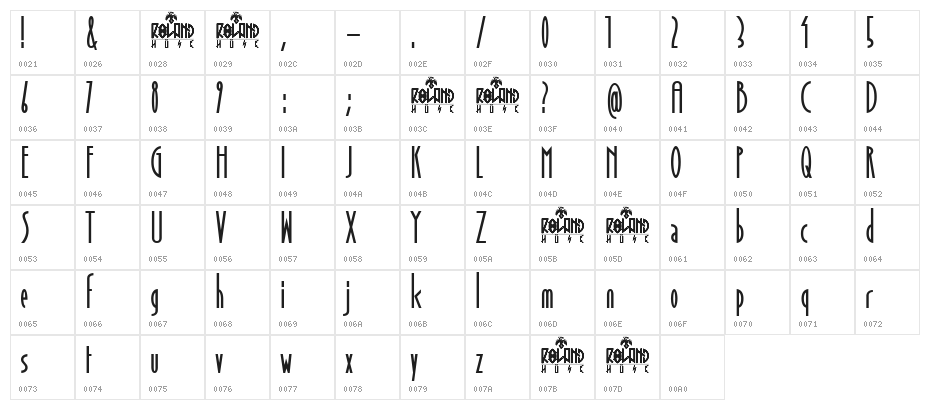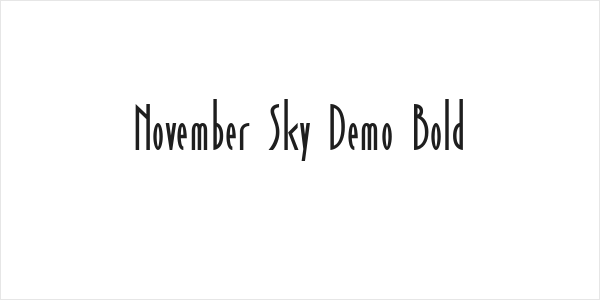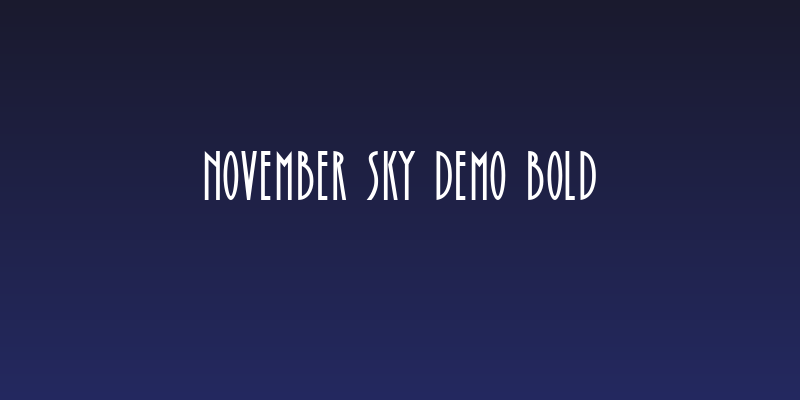
November Sky Demo Bold Font
✎ Art Deco
November Sky Demo Bold Description
This font features a tall, narrow design with a distinct Art Deco influence. The characters are elongated and elegant, with a consistent stroke width that gives it a clean and modern appearance. The uppercase letters are particularly striking, with sharp angles and a geometric feel. The lowercase letters maintain the same narrow structure, providing a cohesive look across the typeface. Numbers and special characters are designed to match the overall aesthetic, making this font suitable for a variety of applications. Its unique style makes it stand out, while its readability ensures it remains functional.
| Proposed Projects | Ideal for branding, posters, and editorial design where a modern and elegant look is desired. |